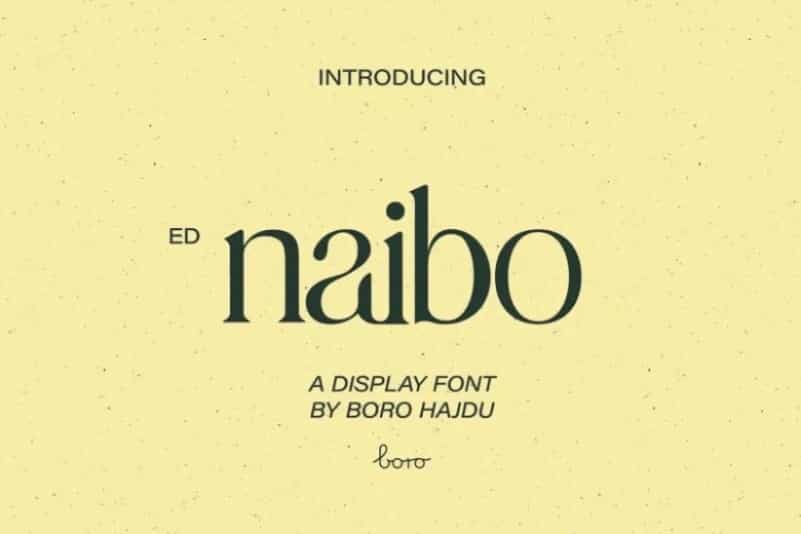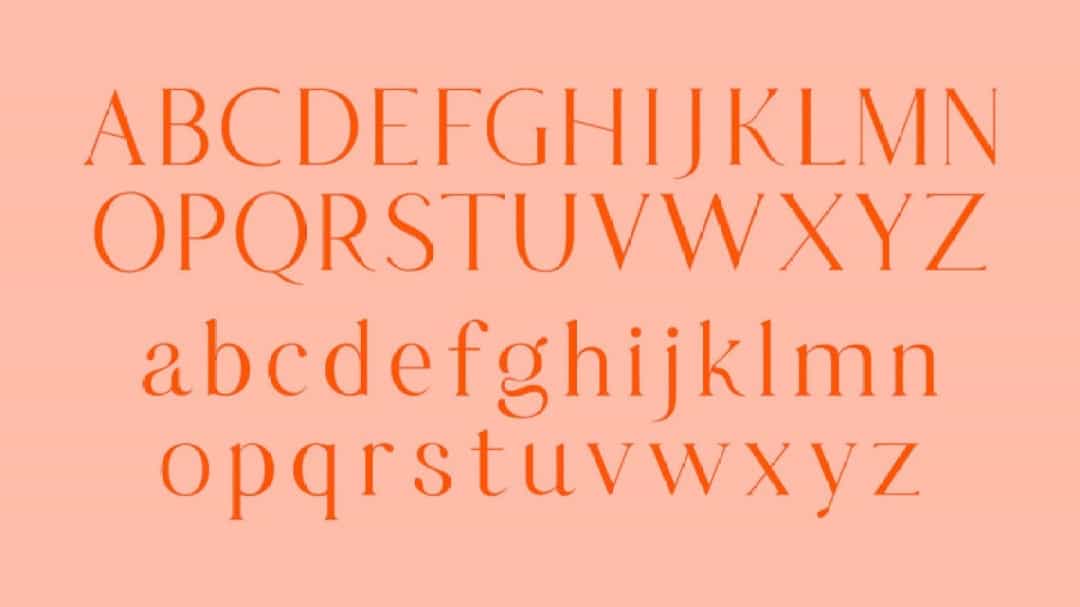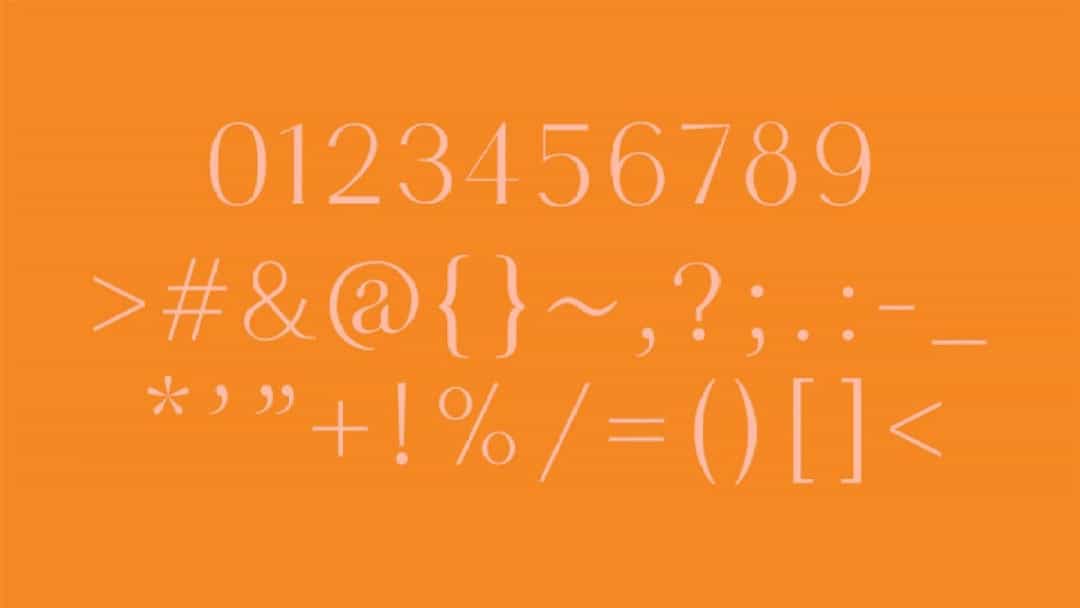
Naibo Font
Naibois an elegant and timeless serif typeface created and designed by Boro Hajdu. This font can be used across many styles and elevates designs to new heights – make sure this font becomes part of your most innovative ideas and watch how quickly they materialise!